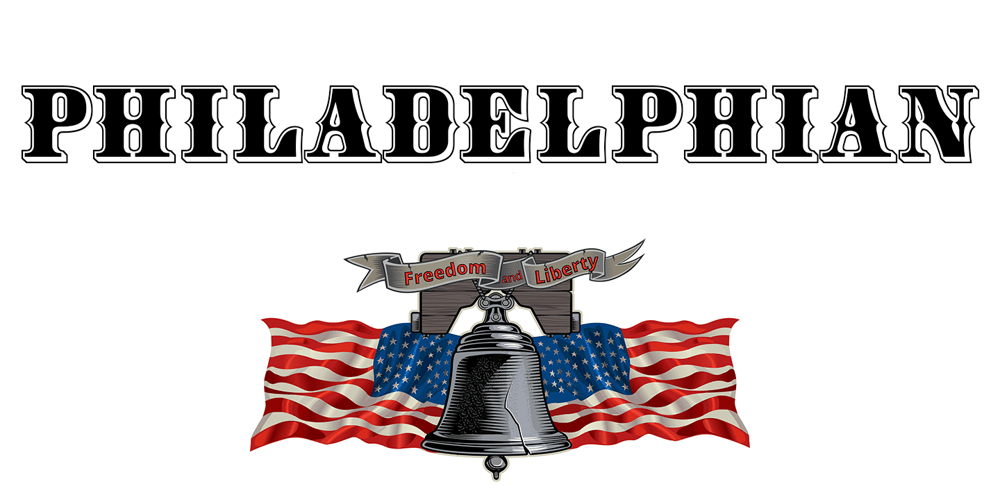
Philadelphian
Philadelphian font
Philadelphian Font Family was designed by Michael Hagemann and published by FontMesa. Philadelphian contains 12 styles and family package options. Philadelphian is a revival of a MacKellar, Smiths & Jordan font from 1867 by the same name.The regular version with shadow outline was the only style that was offered in 1867.We’ve taken the original design further by creating two additional weights of medium and bold plus plain black versions.The medium and bold weights are unique because only the horizontal strokes increase in thickness while the vertical strokes remain the same in each weight.Philadelphian Nite is the plain black version of this font family, Nite is the casual spelling of the word Night meaning dark or black.In the late 1800’s Philadelphian was a very popular typeface which can be seen on many billheads and letterheads through the early 1900’s.If you’re looking for a western style font that doesn’t look like any other then Philadelphian is the right choice.While the name doesn’t remind you of the cowboy genre we’ve kept the original name for historical reasons because this font was so popular in its day.We plan on going forward with a weathered version of Philadelphian which will be released under a southwestern style name.With Philadelphian we’ve decided to set the complete family price to an amount that may be considered on sale all of the time.